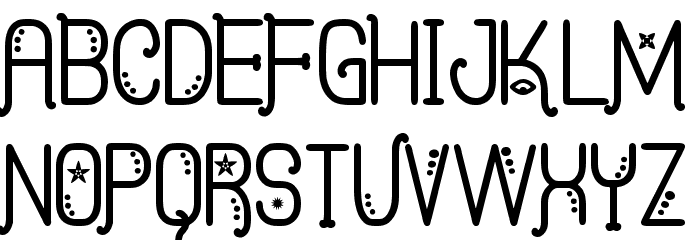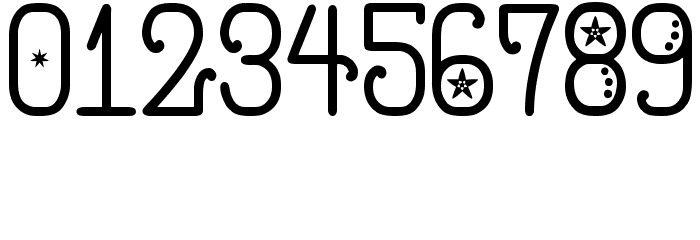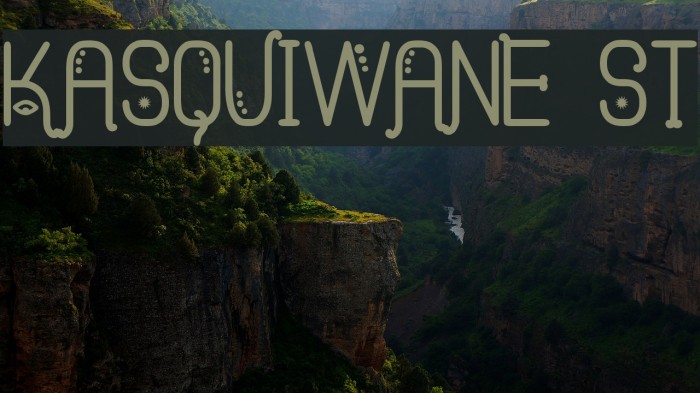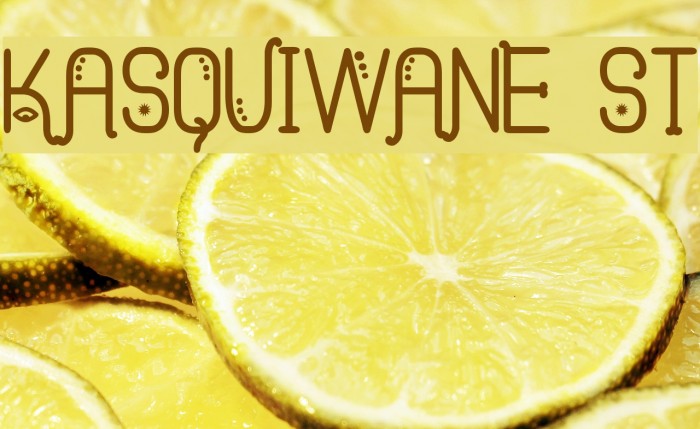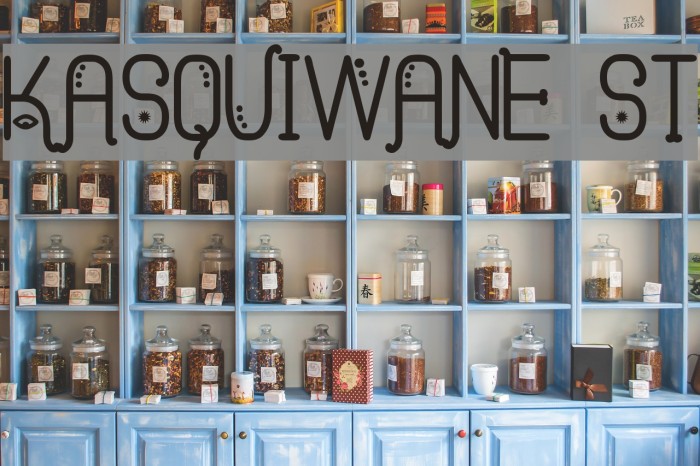
Kasquiwane St Font
This playful and decorative font features a unique design with whimsical elements integrated into each character. The uppercase letters are adorned with dots and star-like symbols, adding a touch of fun and creativity. The numbers also follow this playful theme, with similar decorative elements. The overall appearance is bold and eye-catching, making it suitable for projects that require a lively and engaging typeface. The font maintains a consistent stroke width, providing a balanced look across all characters.
A playful, decorative font with whimsical elements and consistent stroke width.
- Proposed Projects: Ideal for children's books, party invitations, playful branding, and creative posters.